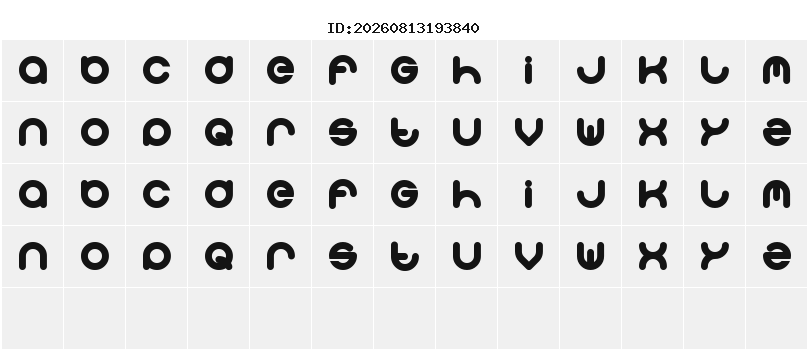
solgas Preview
About solgas.ttf
solgas.ttf is a modern, elegant sans-serif font designed for ultimate readability and visual harmony. Perfect for branding, headlines, web design, and print materials.